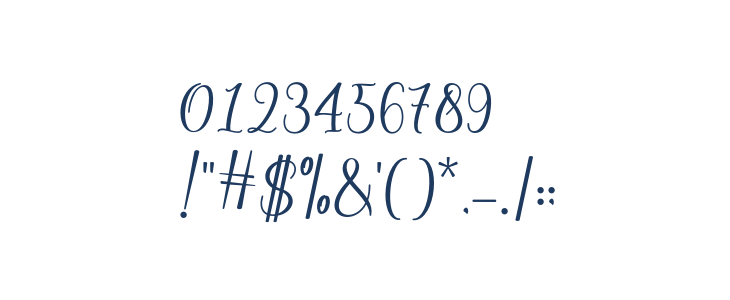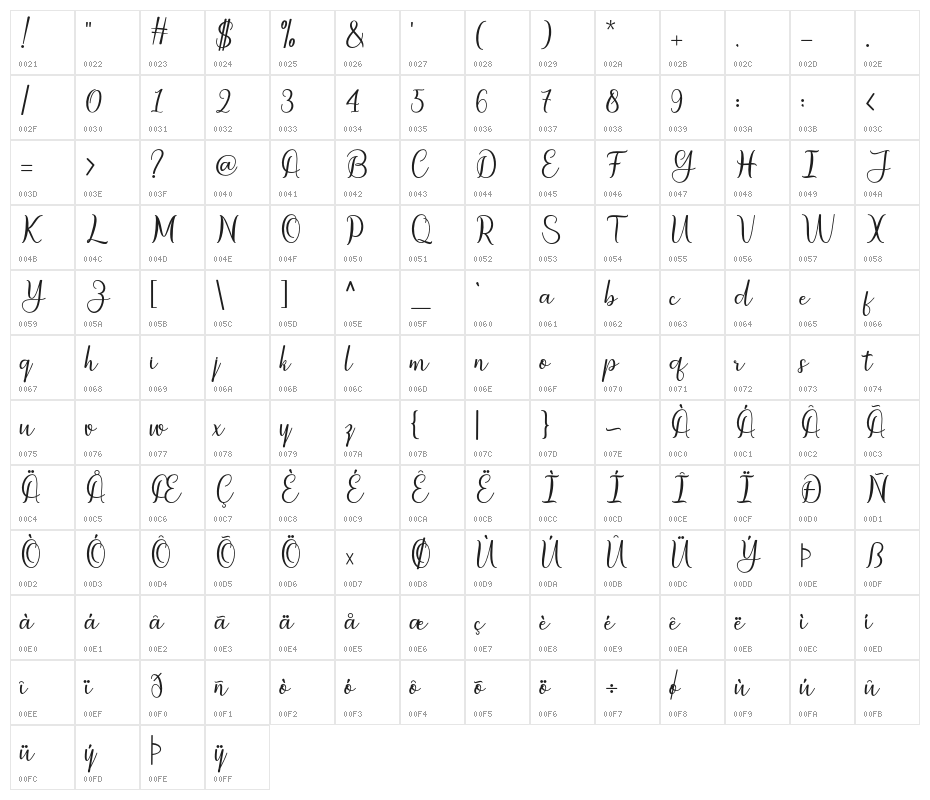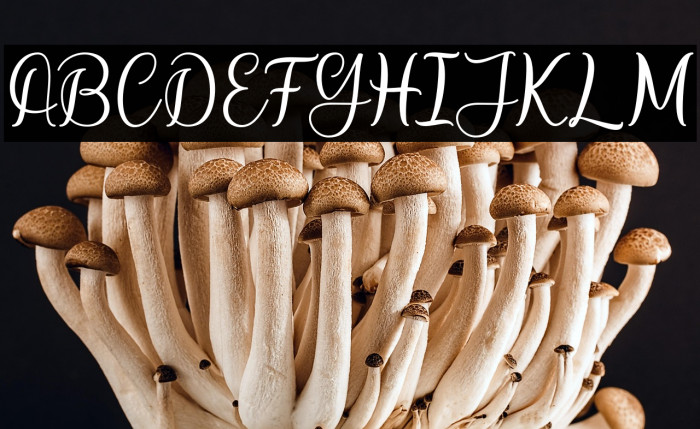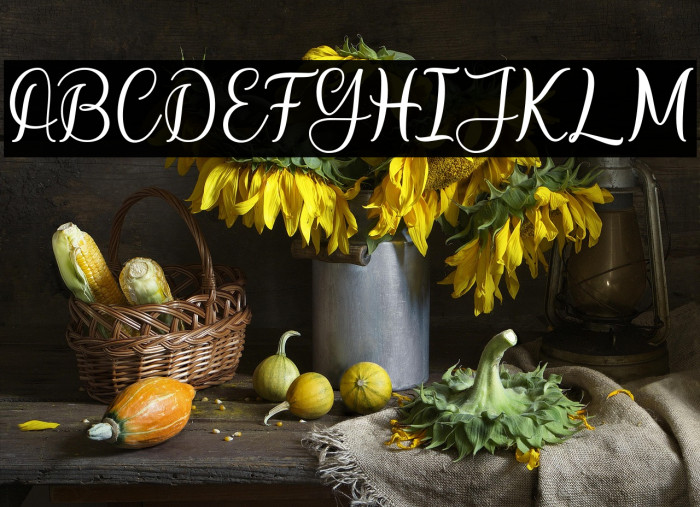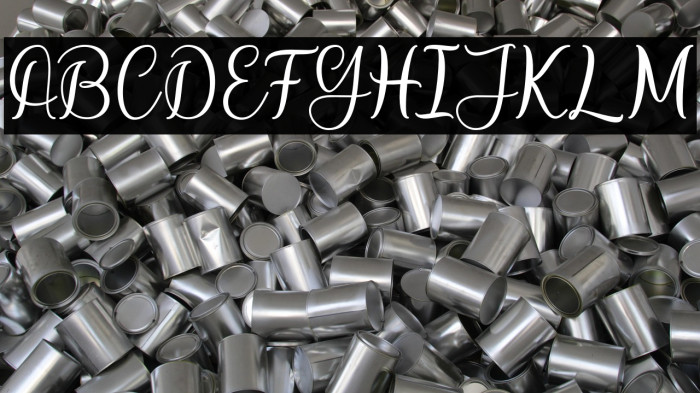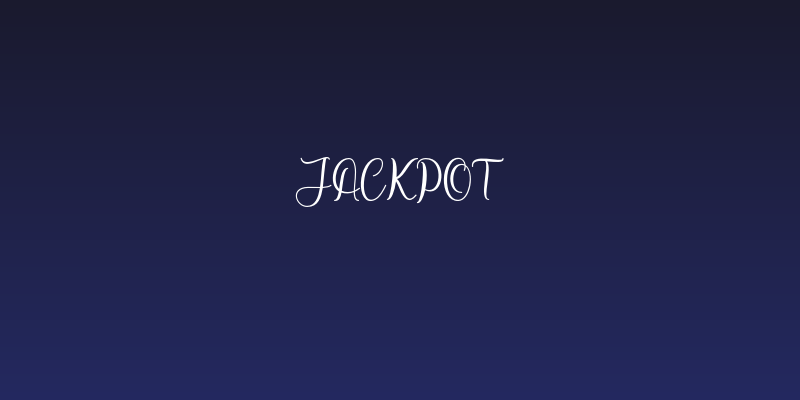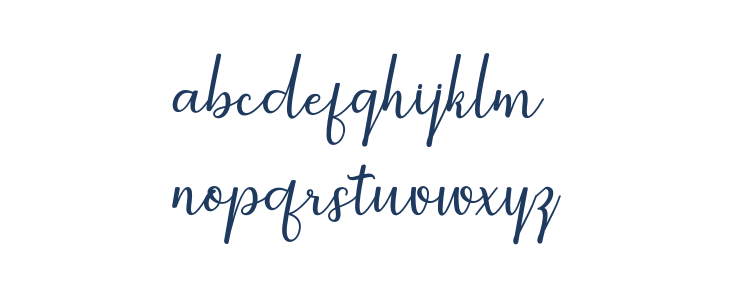
jackpot Font
jackpot Description
This font features a flowing, elegant script style with a modern twist. The uppercase letters are characterized by their graceful curves and loops, giving them a sophisticated appearance. The lowercase letters maintain a consistent style, with smooth connections between characters that enhance readability. Numbers are designed with the same fluidity, making them visually cohesive with the alphabet. Special characters are thoughtfully integrated, maintaining the overall aesthetic. This font exudes a sense of elegance and charm, making it suitable for a variety of creative projects.
| Proposed Projects | Ideal for wedding invitations, branding, greeting cards, and elegant logo designs. |